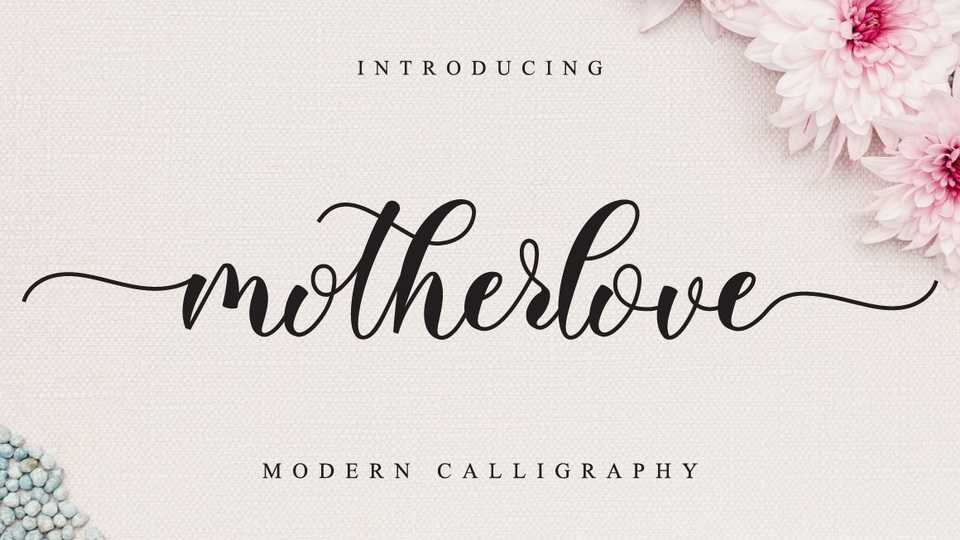
Download Motherlove font, an incredibly distinct, delicate and timeless handwritten font. Motherlove looks stunning on wedding invitations, thank you cards, quotes, greeting cards, logos, business cards and every other design which needs a handwritten touch.
Designer: Nissa Studio